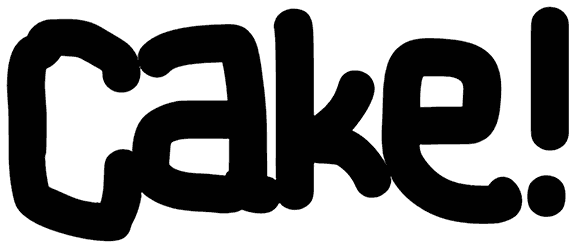
Flim Flom Graffiti Font
Sometimes you need to leave your permanent basis and elevate the visibility of your graphic content by choosing a unique script font such as Flim Flom Graffiti.
Aside from the lack of numbers, this graffiti font is still worth trying in a wide set of creative ideas like street posters, video game brochures, social media posts, magazines, or stickers. Due to its chunky style, this font can lead to a sense of grunge, disorder, vivacity, or smudgy.